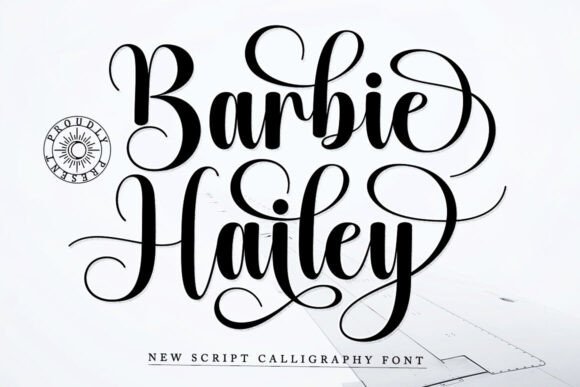
Introducing Barbie Hailey Font: The Epitome of Elegance and Creativity
In the realm of typography, few fonts have managed to capture the essence of elegance and sophistication as effectively as the Barbie Hailey Font. This exquisite writing font has been expertly designed to transcend the ordinary, offering a unique blend of style and functionality that can elevate your creative projects to unprecedented heights. In this article, we’ll delve into the features, benefits, and potential applications of the Barbie Hailey Font, exploring why it has become a favorite among designers, artists, and writers.
Key Features of Barbie Hailey Font
- Elegant Design: The Barbie Hailey Font boasts an elegant and refined design, characterized by its smooth lines, balanced proportions, and exquisite attention to detail.
- PUA Encoding: This font is PUA (Private Use Area) encoded, which means that it provides easy access to all glyphs and strokes, allowing users to unleash their creativity without any limitations.
- Versatility: The Barbie Hailey Font is incredibly versatile, making it suitable for a wide range of applications, from digital projects to print materials.
- User-Friendly: The font’s intuitive design ensures that users can navigate and apply its various features with ease, regardless of their level of expertise.
Unlocking Creative Potential with Barbie Hailey Font
The Barbie Hailey Font offers numerous benefits that can significantly enhance your creative workflow. By incorporating this font into your projects, you can:
- Elevate Your Design: Add a touch of sophistication and elegance to your designs, setting them apart from the competition.
- Streamline Your Workflow: The font’s PUA encoding and user-friendly design enable you to work more efficiently, saving time and effort.
- Expand Your Creative Horizons: With the Barbie Hailey Font, you can explore new creative avenues, experimenting with different styles and techniques to produce truly unique works.
Exploring the Many Applications of Barbie Hailey Font
The Barbie Hailey Font’s versatility makes it an excellent choice for a wide range of applications, including:
- Digital Design: Use the font to create stunning digital content, such as social media graphics, blog posts, and website headers.
- Print Materials: Apply the font to print materials like brochures, flyers, posters, and business cards to add a touch of elegance.
- Branding and Identity: Incorporate the Barbie Hailey Font into your brand’s visual identity to convey a sense of sophistication and refinement.
- Art and Illustration: Experiment with the font to create unique and captivating artwork, such as typographic illustrations and quotes.
Tips and Tricks for Getting the Most Out of Barbie Hailey Font
To maximize the potential of the Barbie Hailey Font, consider the following tips and tricks:
- Experiment with Different Sizes: Play with various font sizes to create visual interest and hierarchy in your designs.
- Pair it with Other Fonts: Combine the Barbie Hailey Font with complementary fonts to create a unique and harmonious typographic combination.
- Pay Attention to Kerning: Adjust the kerning to ensure that the font looks polished and refined.
In conclusion, the Barbie Hailey Font is an exceptional writing font that offers a perfect blend of elegance, creativity, and functionality. Its PUA encoding, user-friendly design, and versatility make it an excellent choice for designers, artists, and writers looking to elevate their creative projects. By incorporating the Barbie Hailey Font into your workflow, you can unlock new creative possibilities, streamline your design process, and produce stunning works that showcase your unique style and vision.